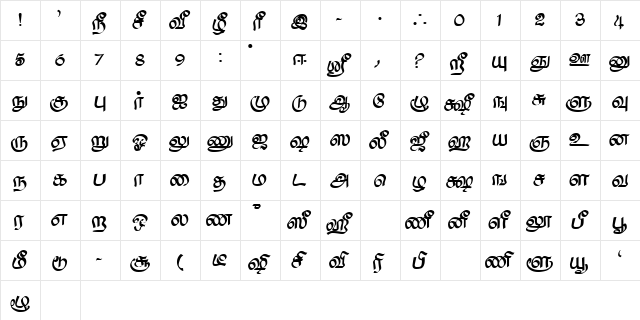
Saavaeri Regular
Design Context for Saavaeri Typeface
Saavaeri offers clean, dependable letterforms without strong stylistic allegiance, making it a practical choice for designers who need flexibility.